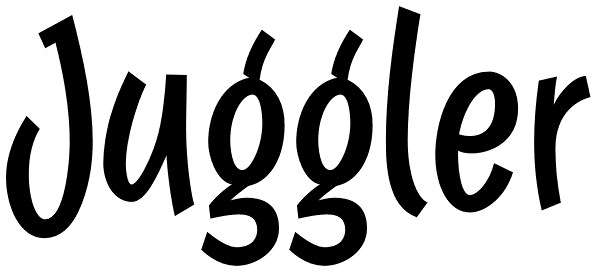
Juggler
A casual, unconnected script face. A medium-line script that is suitable for work requiring a friendly style. Ideal for captions, packaging, invitations, cards, posters, ads, greeting cards & book jackets and covers.
Juggler Font